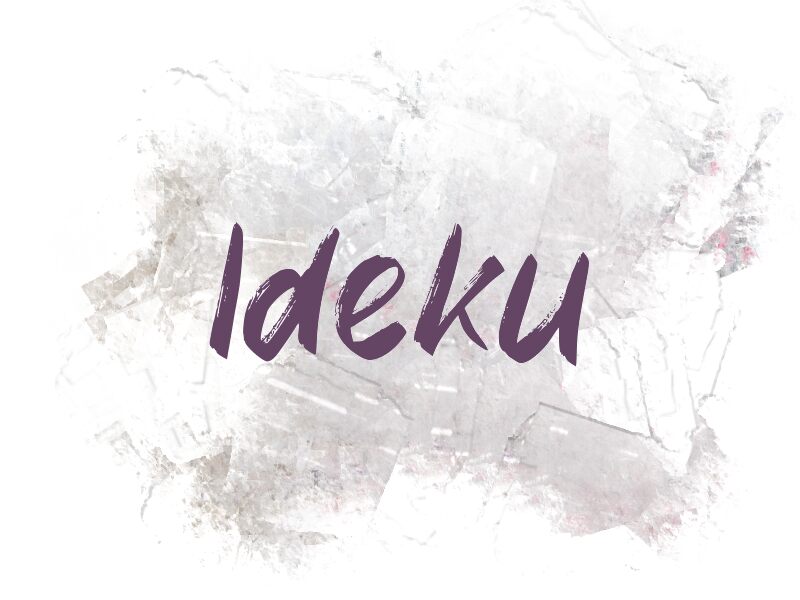
Ideku
Ideku font by wep embodies a brush-like texture with an expressive, modern aesthetic. It carries an energetic feel and artistic flair often associated with creativity and innovation. The playful, freehand appearance makes this free calligraphy font suitable for designs that require a personal, friendly touch.
Use Ideku in motivational quotes, modern invitations, magazines design, social media covers or bios. It’s also ideal for website banners, ads in general, printed publications or book covers.